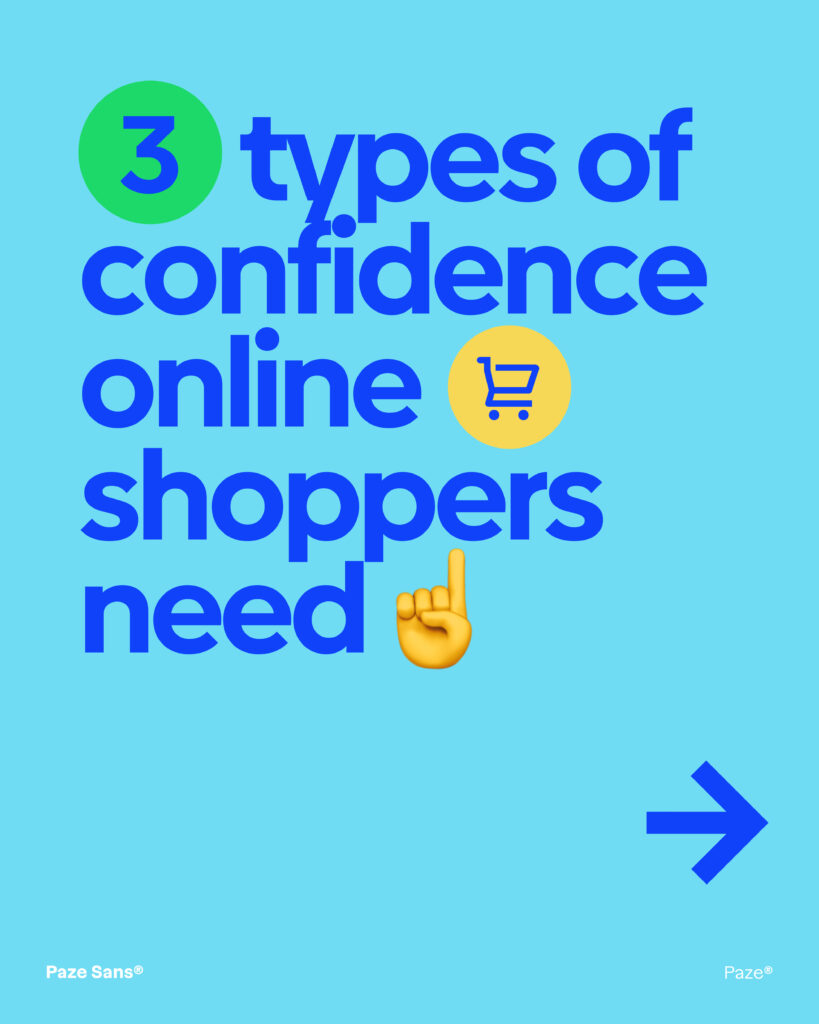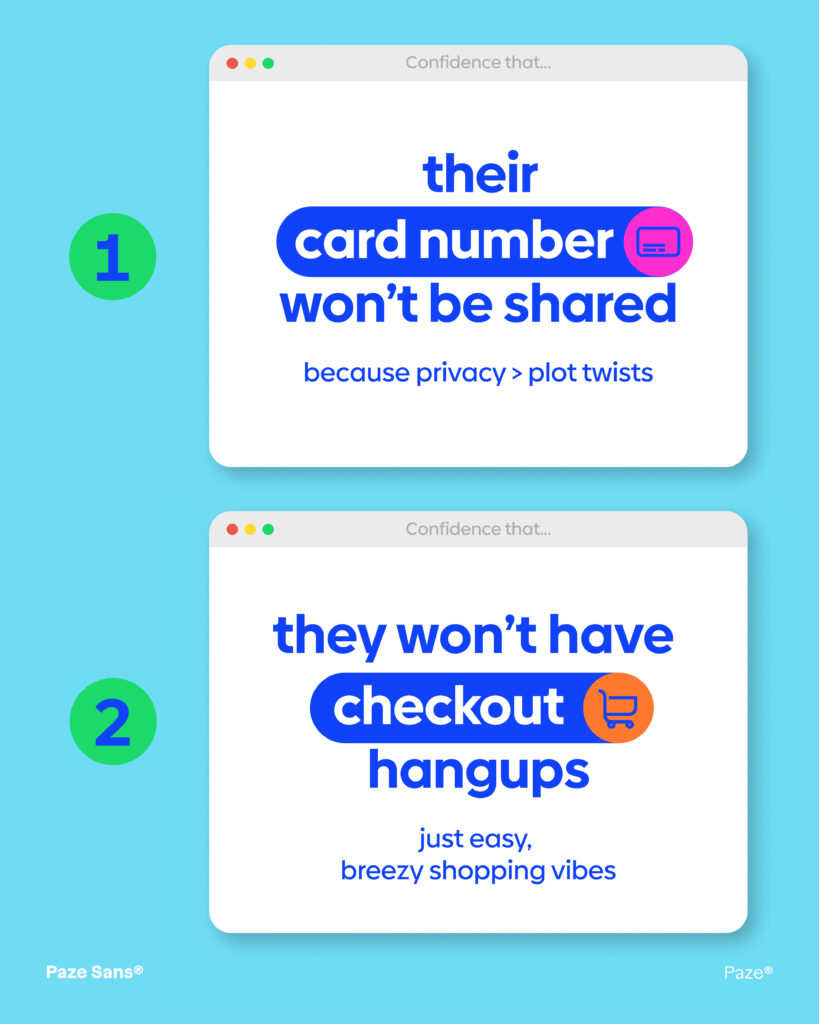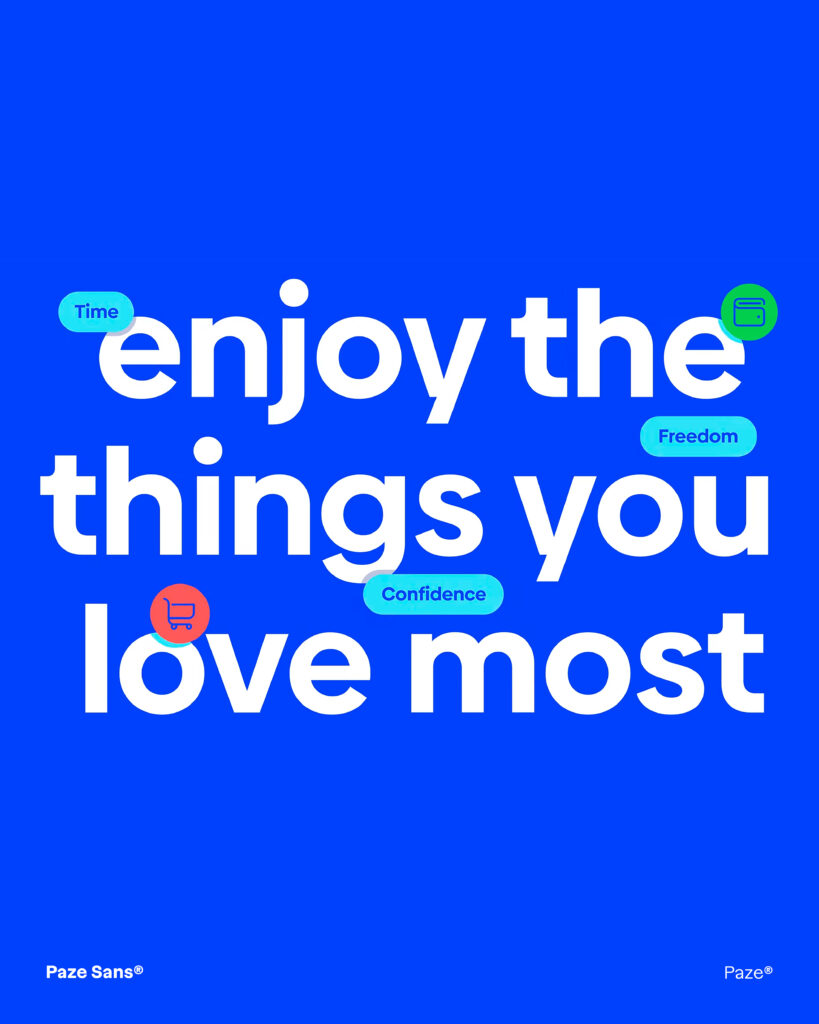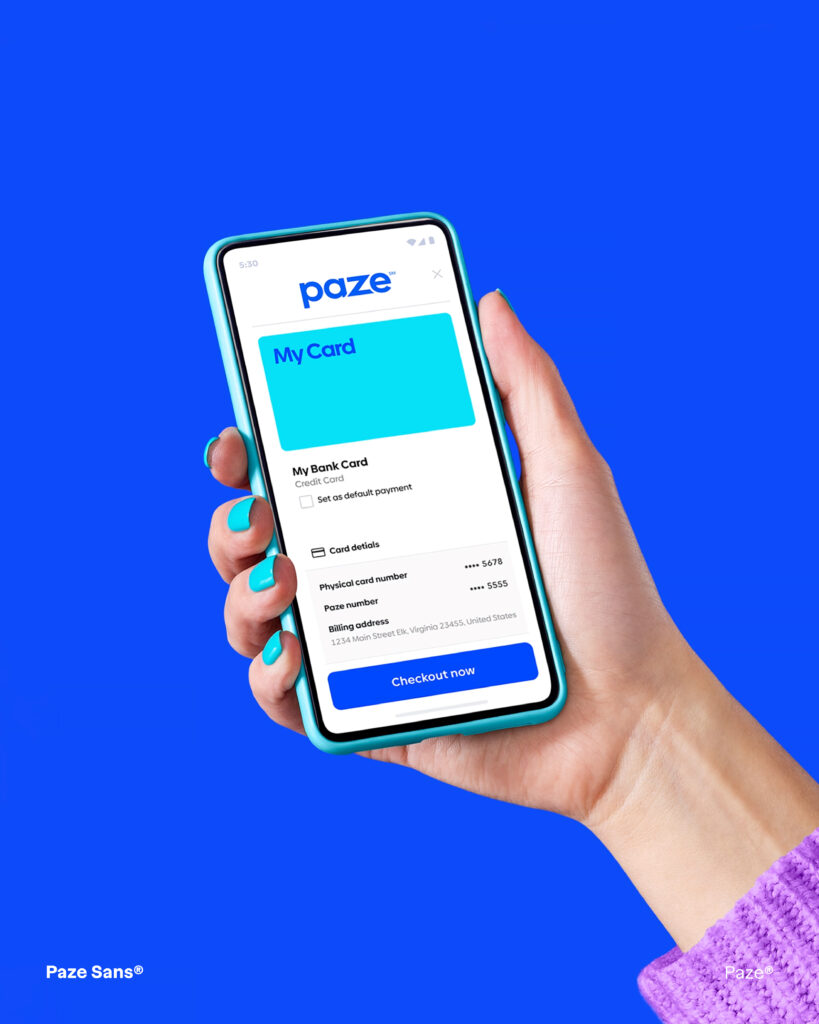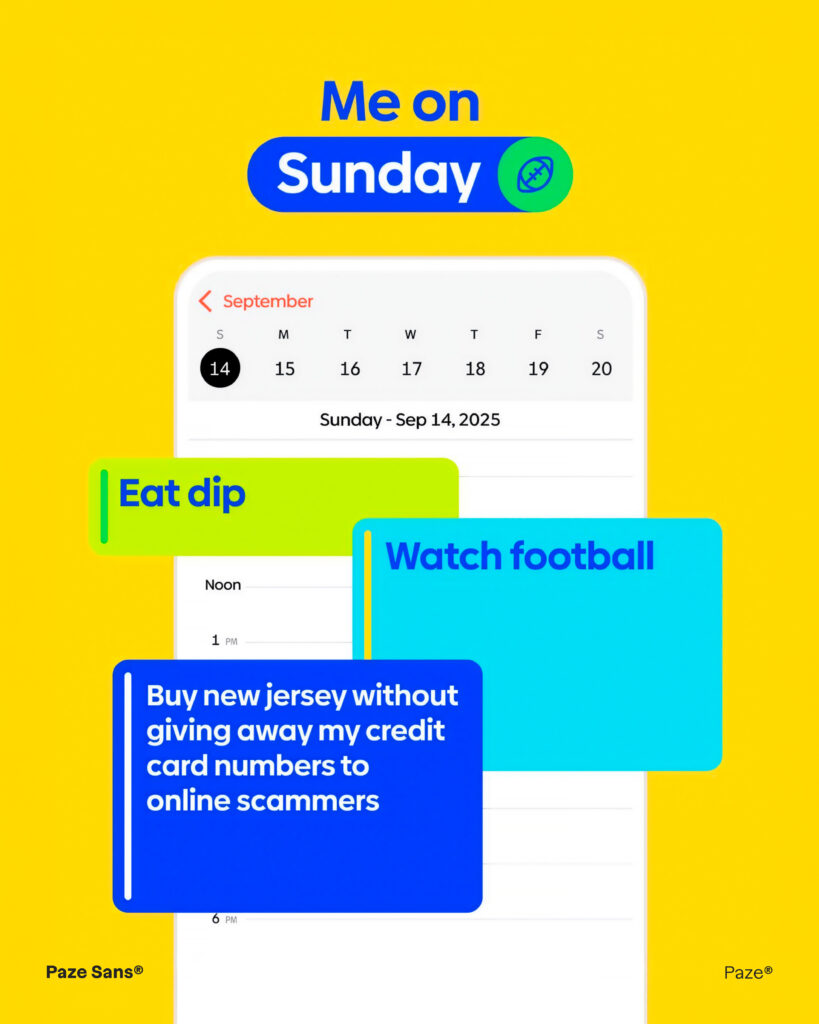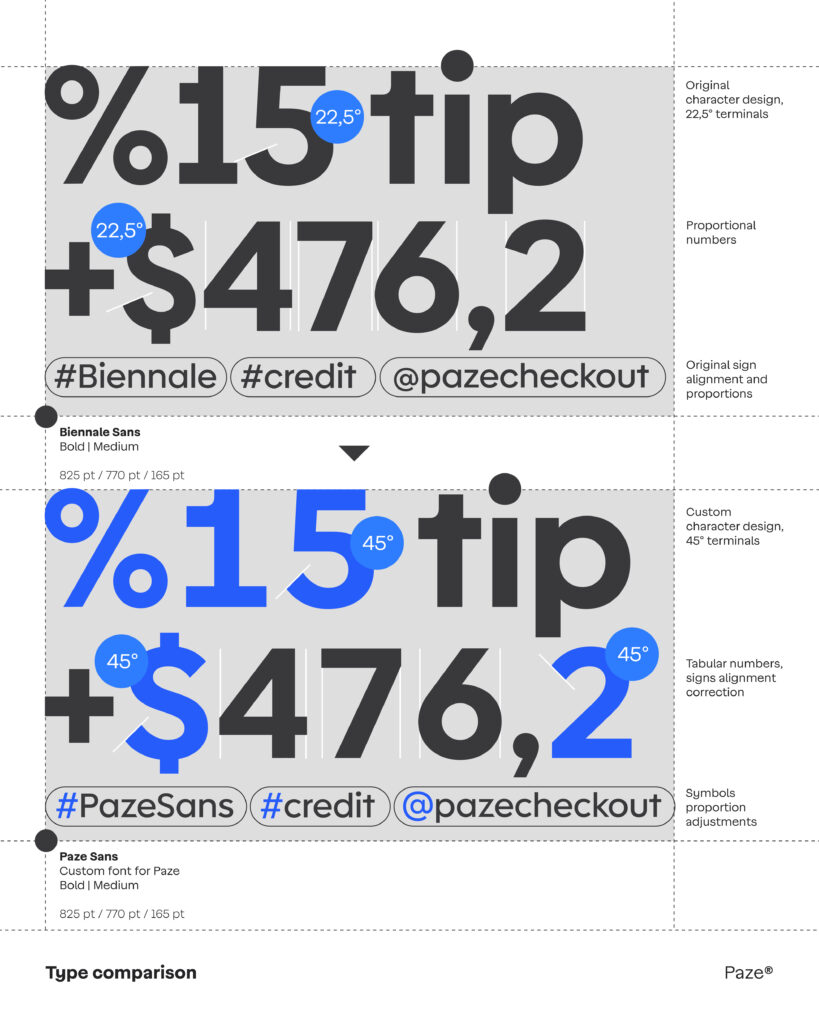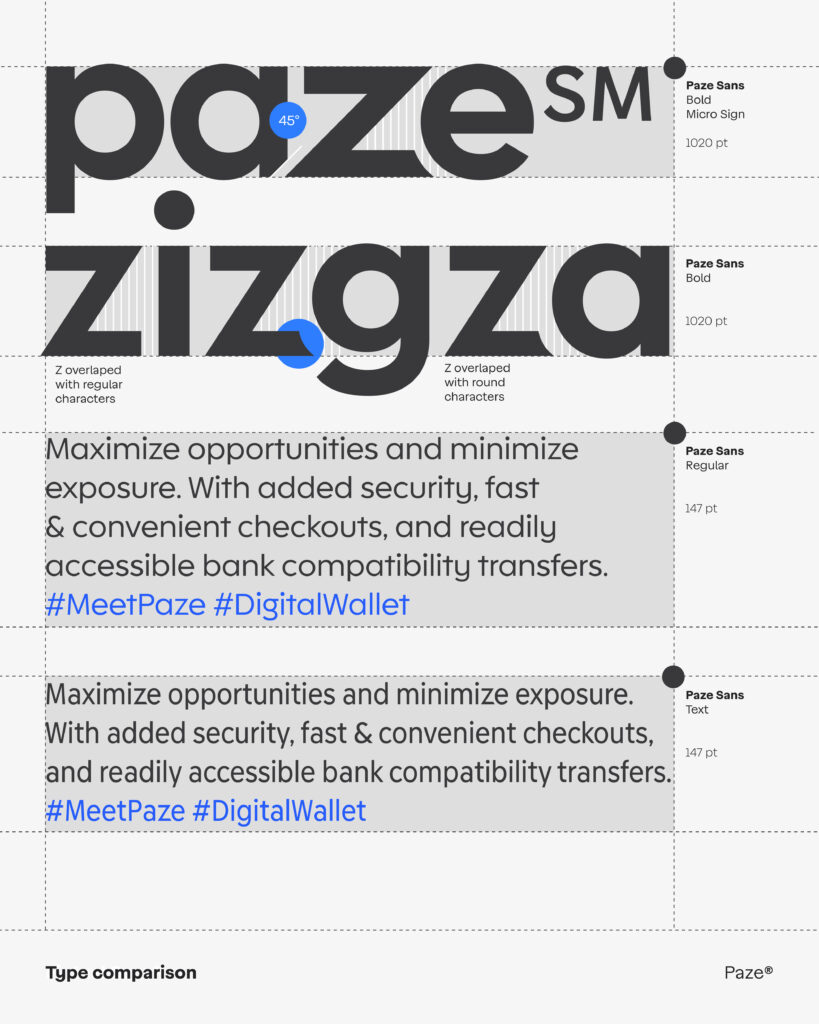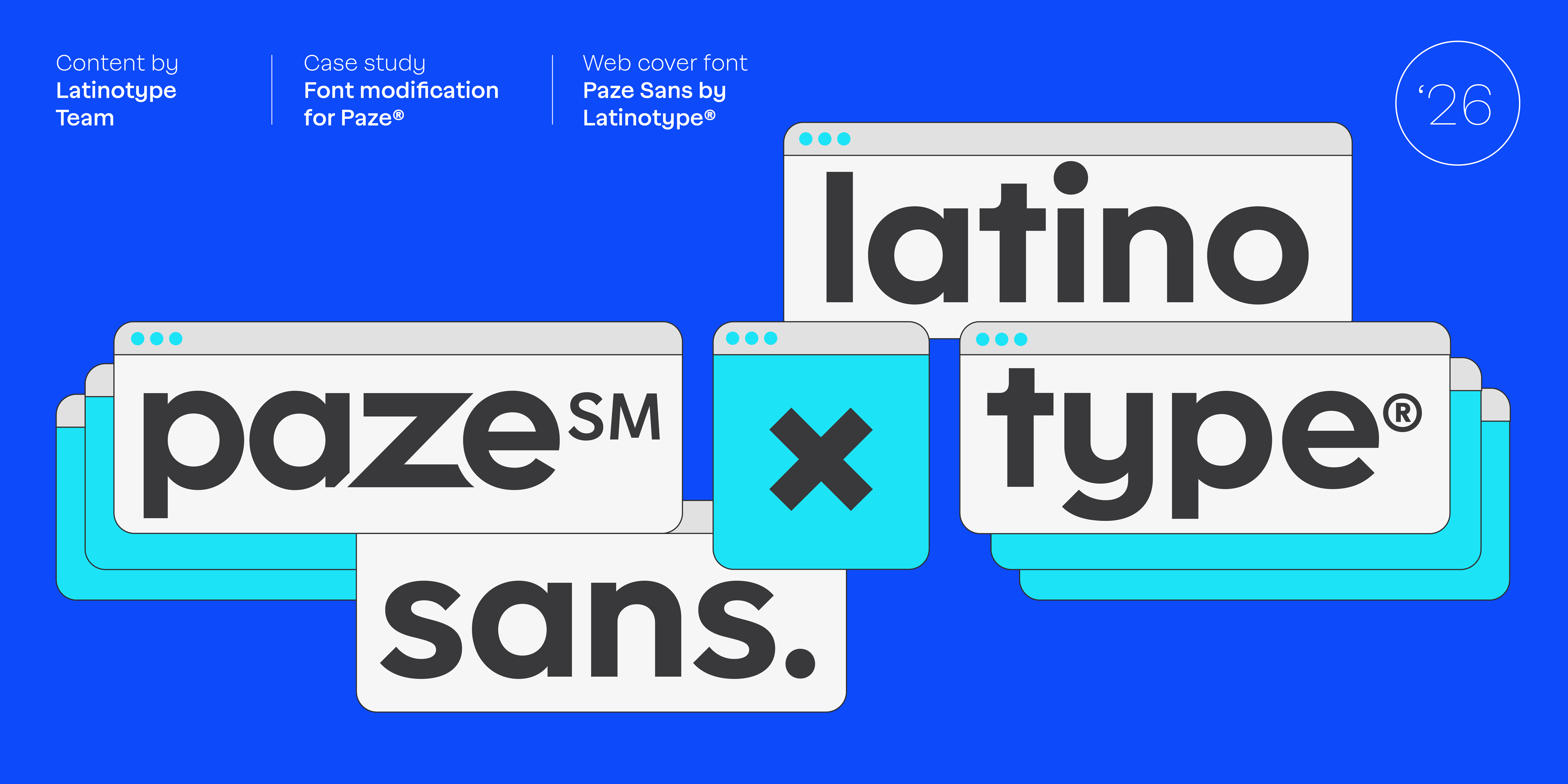
Paze Sans
A Custom Typeface Design Built for Banking Scale
In a checkout button, every detail competes for trust in under a second. When Early Warning launched Paze — a bank-backed digital wallet offered by Bank of America, Chase, Wells Fargo, and five other major U.S. institutions — the identity needed a typeface that could carry that trust across 125 million eligible cardholders, from a mobile button to a billboard.
Biennale, Latinotype’s geometric sans serif with strong x-height and clean proportions, was the right structural foundation. Its character — precise without being cold, confident without being loud — aligned with what Paze needed to communicate: the security of your bank, the speed of modern checkout. But a corporate identity on a banking scale required more than a license. It required a typeface built from the ground up for the brand.
Latinotype delivered Paze Sans in 7 weights with italics and a dedicated text Regular. The process covered the full typographic system: uppercase and lowercase design, numerals, and a complete character set including diacritics, punctuation, and mathematical symbols.
One technical detail defines the project, highlighted by type engineer César Araya: every time a Z appears in text, a contextual alternate triggers automatically — replacing the standard letterform with the notched version that echoes the logo’s diagonal cut, embedding the brand gesture directly into the type system.
Paze Sans now anchors a visual identity that runs across checkout buttons, mobile flows, out-of-home campaigns, and co-branded placements with McDonald’s, Starbucks, and United Airlines — a custom typeface design built not just for a brand, but for the infrastructure of American digital payments.